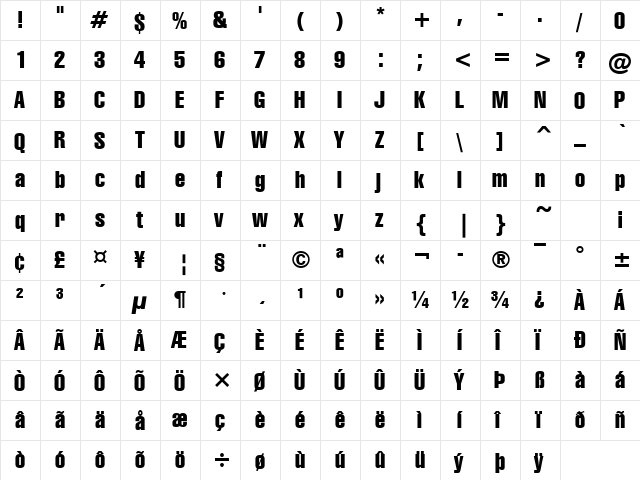
GenevaCndn Bold
Design Context for GenevaCndn Typeface
GenevaCndn offers clean, dependable letterforms without strong stylistic allegiance, making it a practical choice for designers who need flexibility. The heavy weight commands attention and anchors typographic hierarchies.